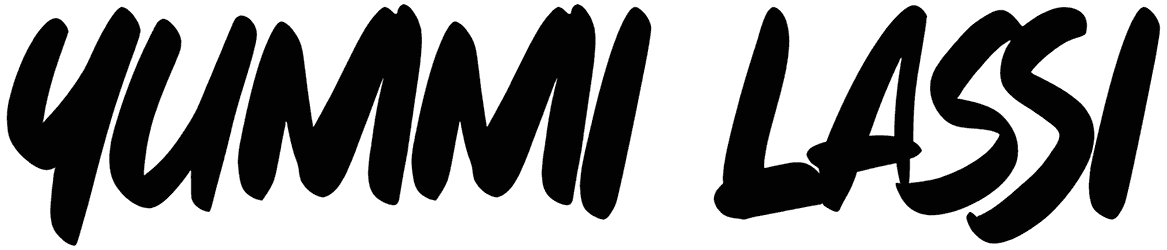
Yummi Lassi Font
Yummi Lassi is a script, brush font that is bold but does not include lowercase letters or a few numbers. Downloadable from RB, this font is ideal for imparting a jovial and laid-back air to any undertaking, like posters, banners, flyers, and more.